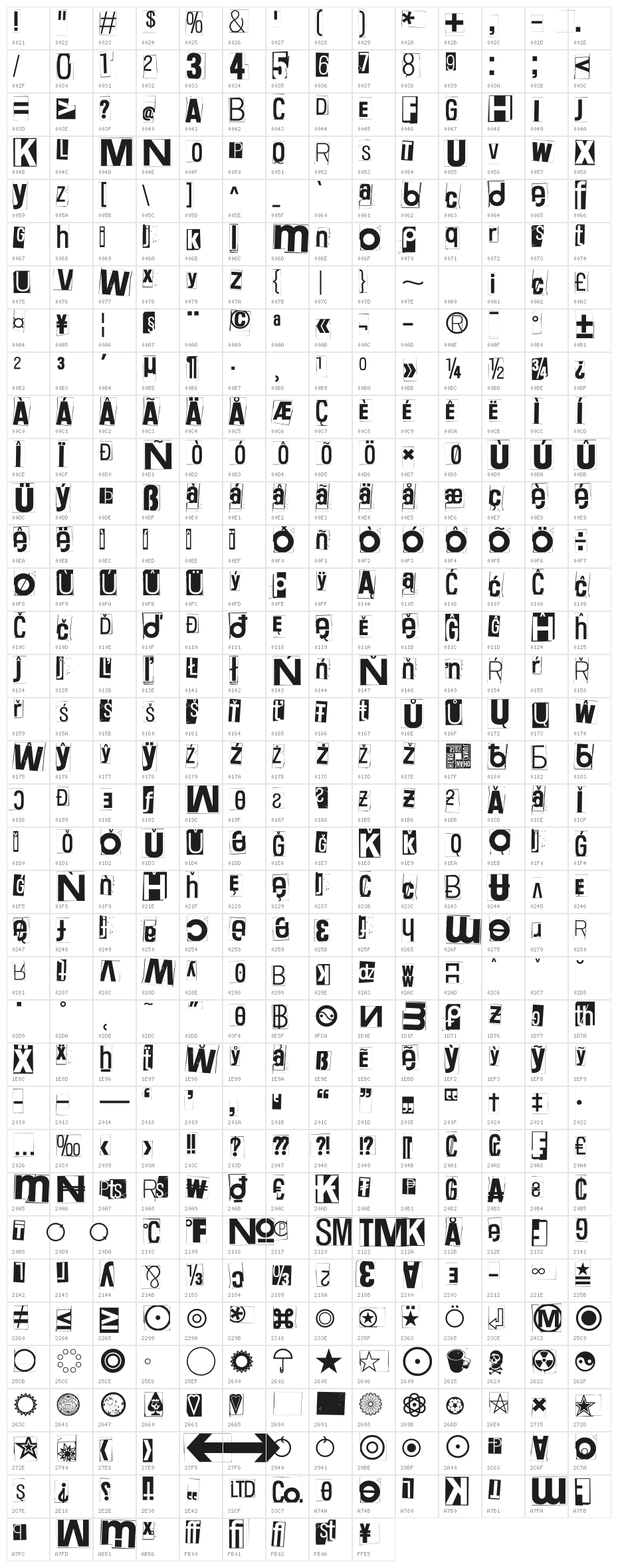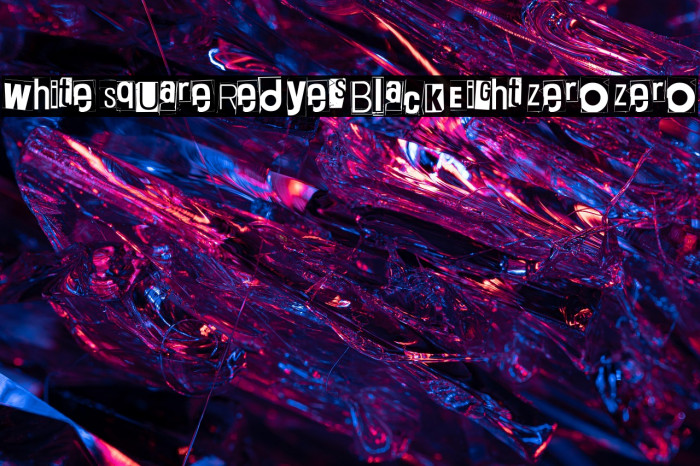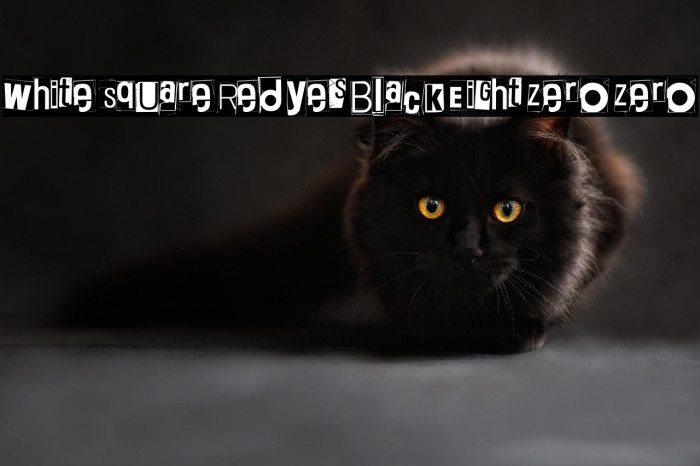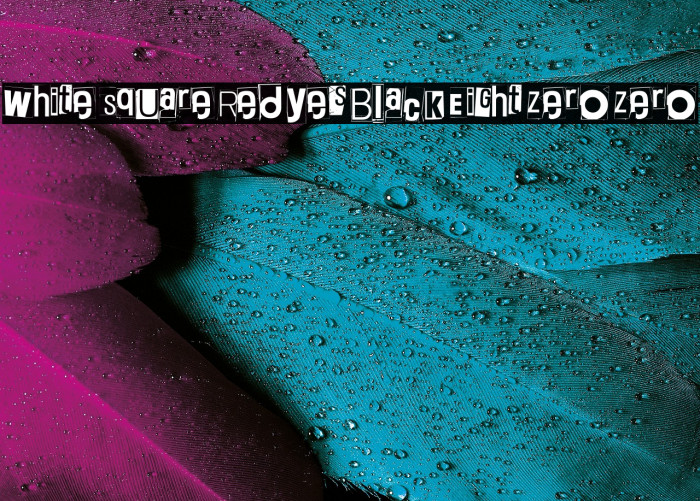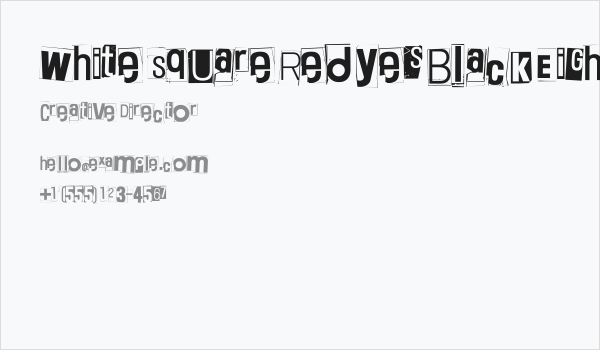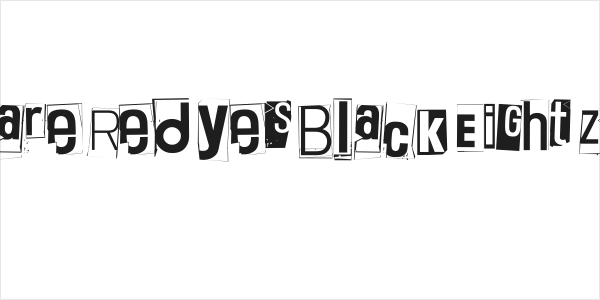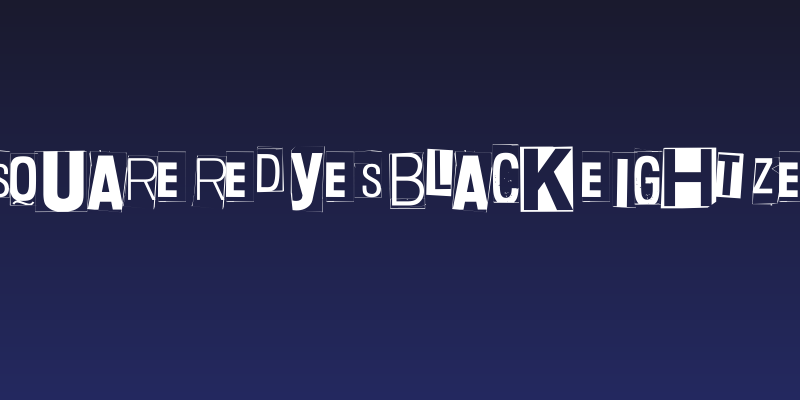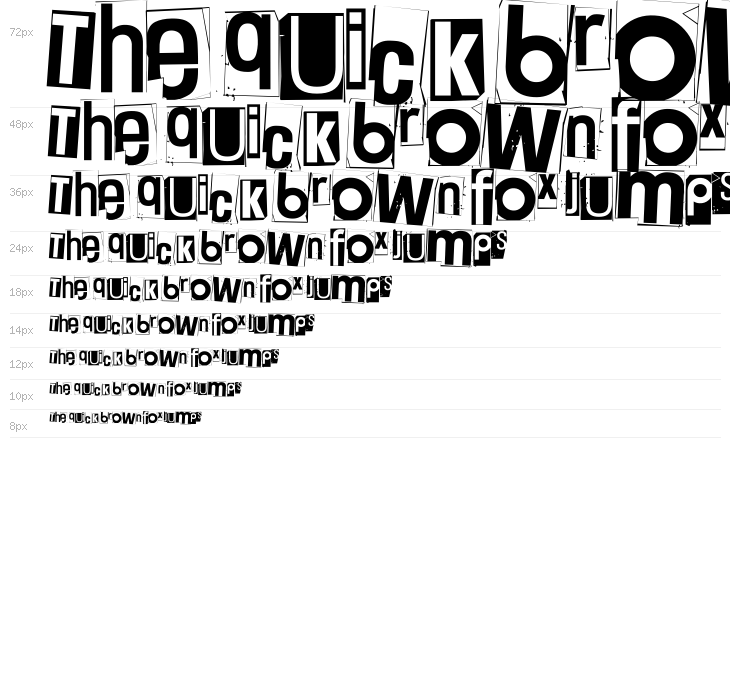
White Square Red Yes Black Eight Zero Zero Font
White Square Red Yes Black Eight Zero Zero Description
A collage-style font with a ransom note aesthetic, featuring a mix of bold, condensed, and varied letterforms.
| Use Case | Headlines, Artistic designs |
| Proposed Projects | Posters, album covers, creative projects. |